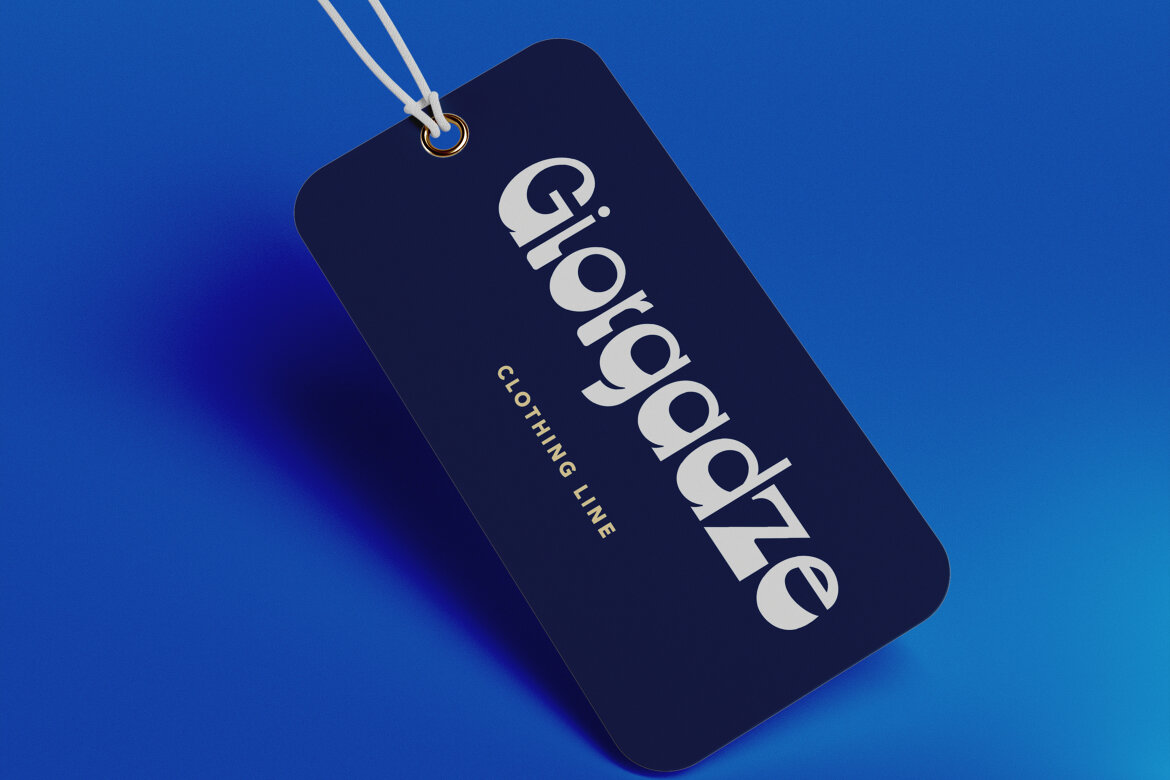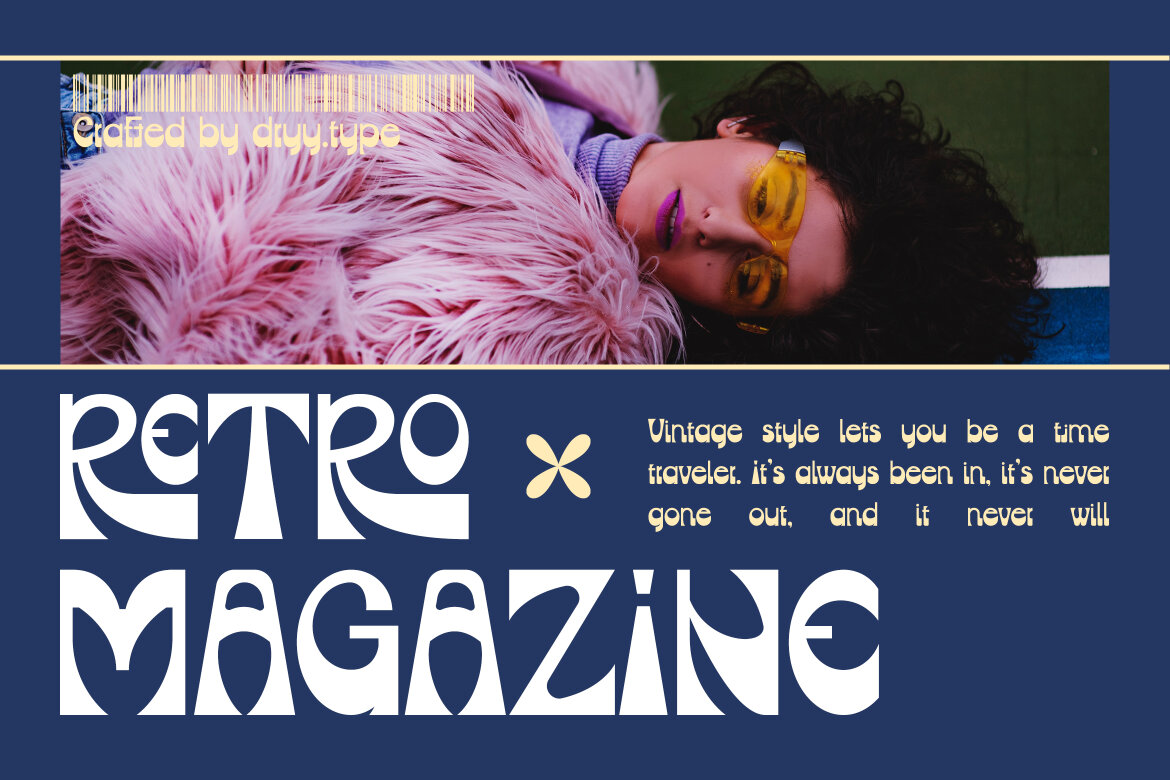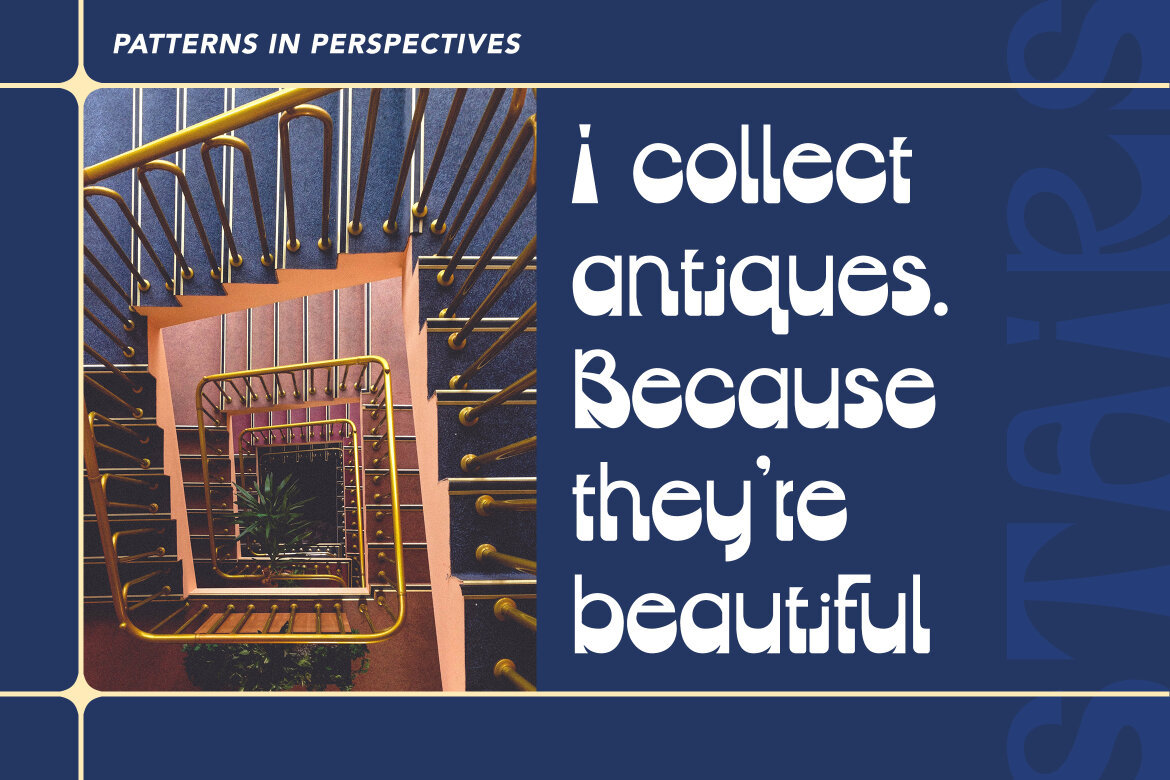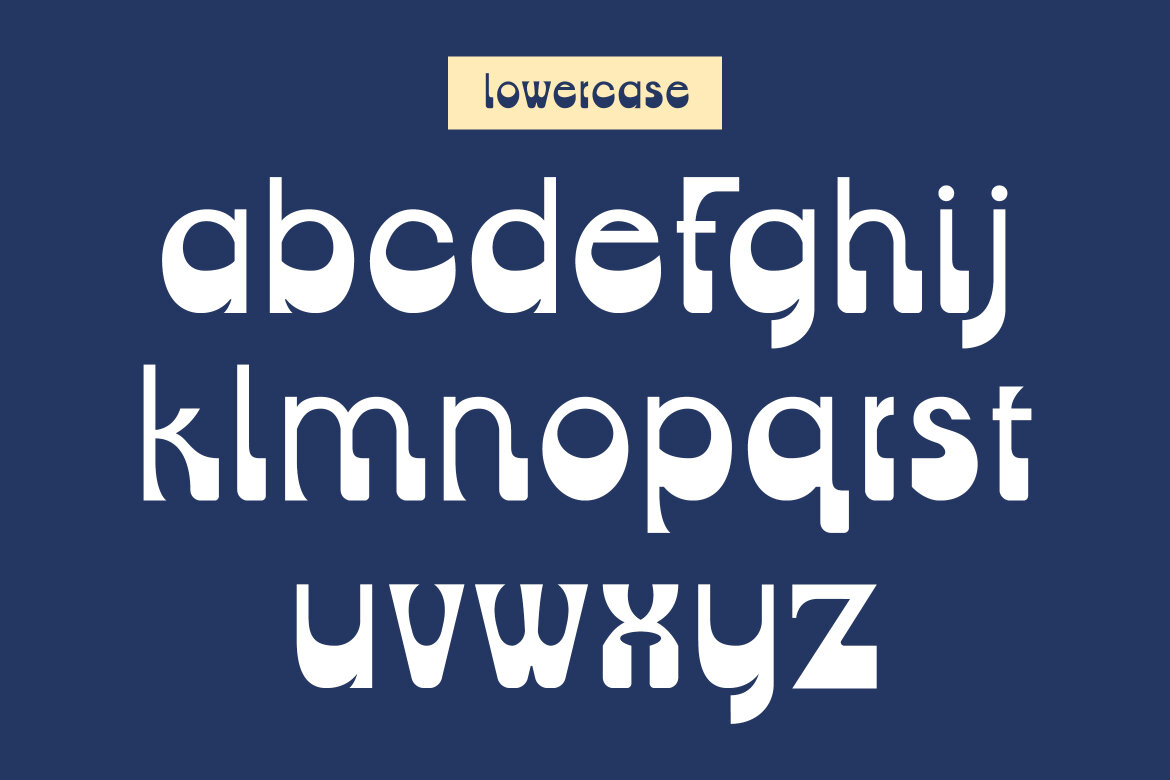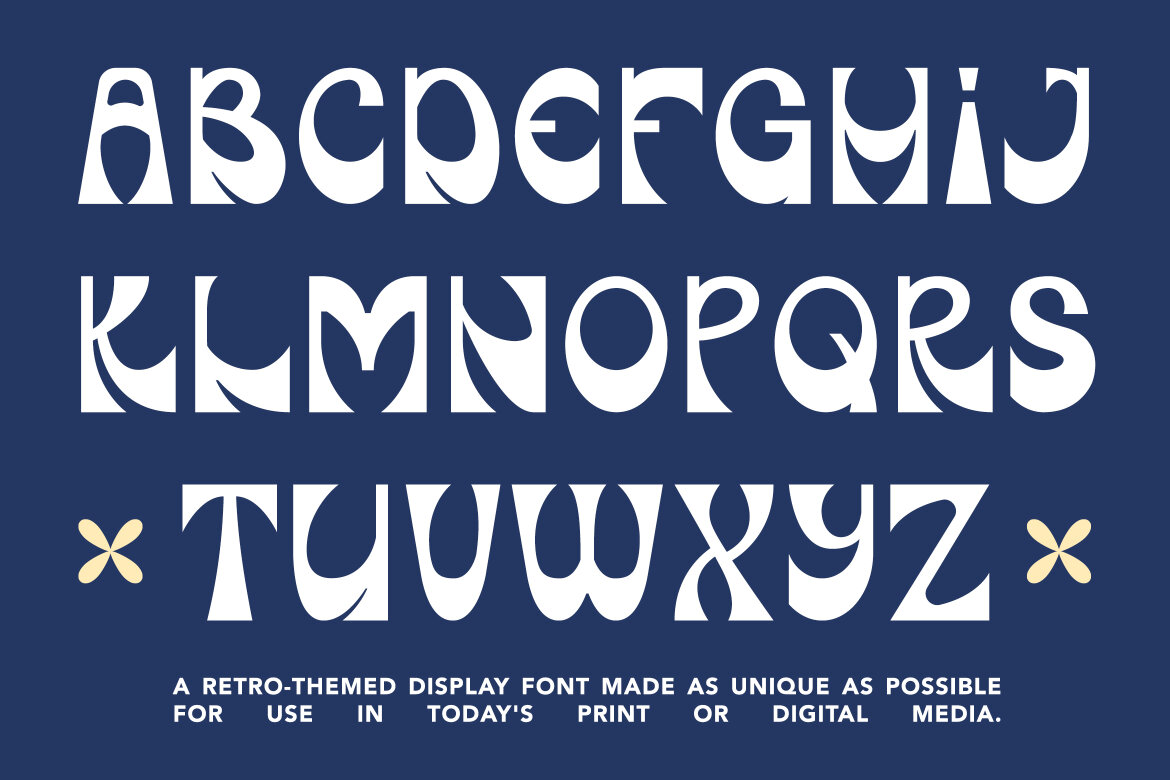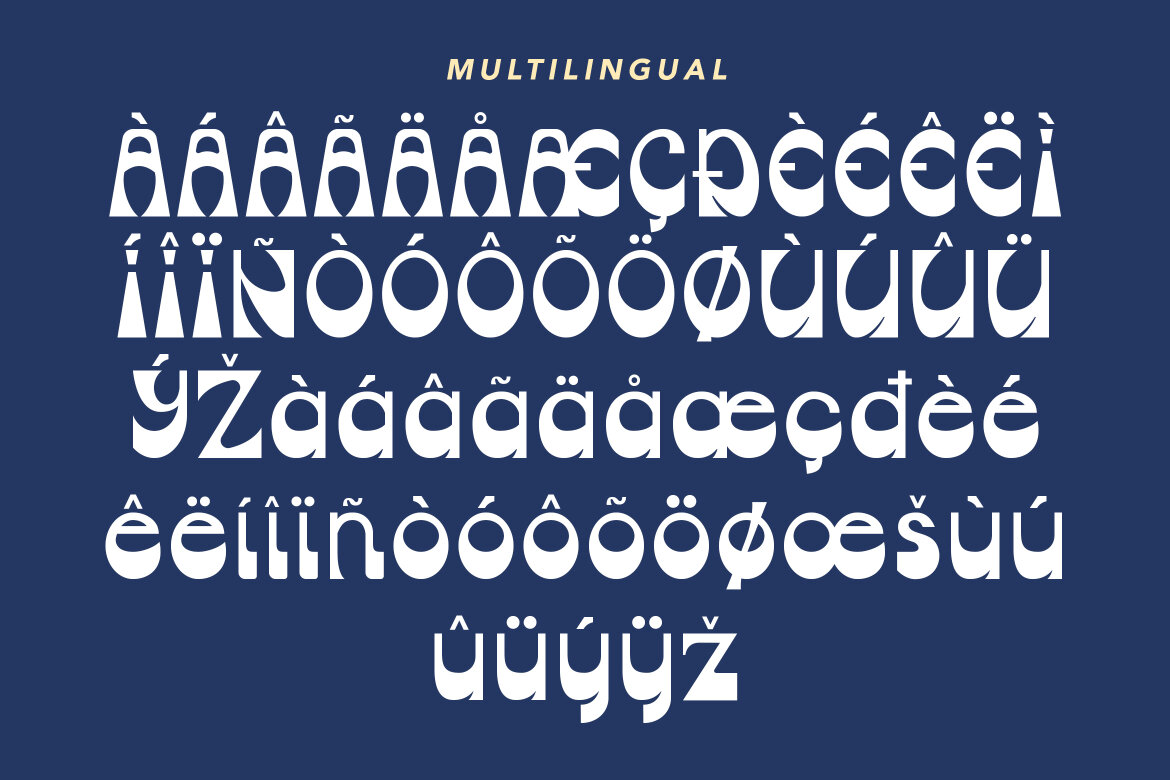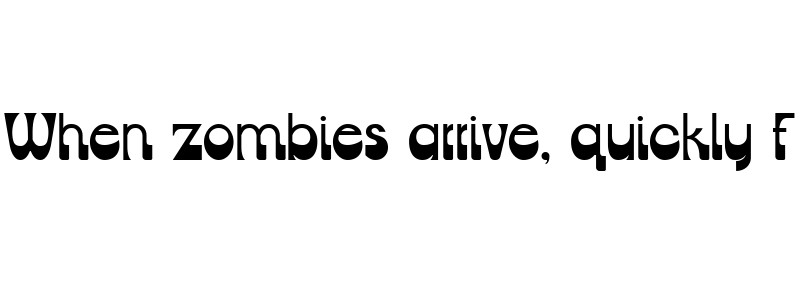
Antique - FREE Retro Display Font
Antique Typeface
A display typeface that has unique characters and a retro theme to work with.
Antique font is, as the name suggests, a unique and old school display font. This font I created is meaningful & very versatile, it goes well with various designs, elevating them to the highest level. Add this font to your favorite creative ideas and see how it turns out!
• features: uppercase, lowercase, ligature & multilingual